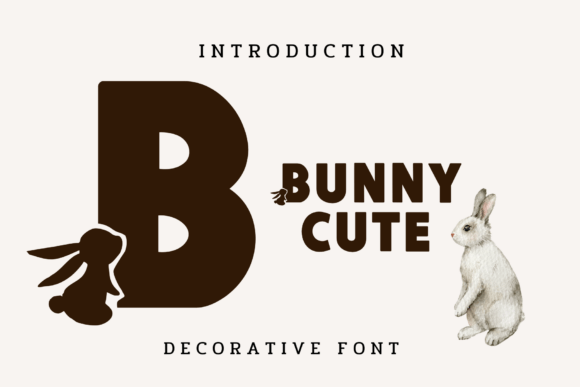
Bunny Cute Font: The Ultimate Guide to This Adorable Decorative Font
Are you looking for a font that can add a touch of cuteness to your designs? Look no further than the Bunny Cute font! This adorable decorative font is perfect for a variety of projects, from taking notes and writing diaries to creating greeting cards and social media posts. In this article, we’ll explore the world of Bunny Cute font and show you how to make the most of this versatile and charming font.
What is Bunny Cute Font?
Bunny Cute is a decorative font that is designed to add a touch of whimsy and playfulness to your designs. With its cute and bubbly letters, this font is perfect for projects that require a bit of personality and charm. Whether you’re creating a greeting card, a social media post, or a banner, Bunny Cute font is sure to make your design stand out.
Uses of Bunny Cute Font
One of the best things about Bunny Cute font is its versatility. This font can be used for a wide range of projects, including:
- Taking notes and writing diaries: Add a touch of cuteness to your notes and diary entries with Bunny Cute font.
- Creating greeting cards: Whether it’s a birthday, holiday, or just because, Bunny Cute font is perfect for creating adorable greeting cards.
- Designing banners: Add a playful touch to your banners with Bunny Cute font.
- Creating social media posts: Stand out on social media with Bunny Cute font.
- Designing mugs, cards, shirts, and stationery: Bunny Cute font is perfect for adding a personal touch to your designs.
Why Choose Bunny Cute Font?
So, why choose Bunny Cute font over other decorative fonts? Here are just a few reasons:
- Cute and playful: Bunny Cute font is designed to be cute and playful, making it perfect for projects that require a bit of personality.
- Versatile: This font can be used for a wide range of projects, from notes and diaries to social media posts and banners.
- Easy to read: Despite its decorative nature, Bunny Cute font is easy to read, making it perfect for projects that require a bit of flair.
Tips for Using Bunny Cute Font
Here are a few tips for using Bunny Cute font:
- Use it sparingly: While Bunny Cute font is adorable, it can be overwhelming if used too much. Use it sparingly to add a touch of cuteness to your designs.
- Pair it with other fonts: Bunny Cute font pairs well with other fonts, such as sans serif fonts. Experiment with different pairings to find the one that works best for your project.
- Experiment with colors: Bunny Cute font looks great in a variety of colors. Experiment with different colors to find the one that works best for your project.
Common Uses of Bunny Cute Font in Digital Design
Bunny Cute font is a popular choice for digital designers. Here are a few common uses:
- Social media graphics: Bunny Cute font is perfect for creating social media graphics, such as Facebook posts and Instagram stories.
- Blog posts: Add a touch of cuteness to your blog posts with Bunny Cute font.
- E-cards: Create adorable e-cards with Bunny Cute font.
Common Uses of Bunny Cute Font in Print Design
Bunny Cute font is also a popular choice for print designers. Here are a few common uses:
- Greeting cards: Bunny Cute font is perfect for creating adorable greeting cards.
- Stationery: Add a touch of cuteness to your stationery with Bunny Cute font.
- Posters: Create eye-catching posters with Bunny Cute font.
In conclusion, Bunny Cute font is a versatile and adorable decorative font that is perfect for a wide range of projects. Whether you’re creating a greeting card, social media post, or banner, Bunny Cute font is sure to add a touch of cuteness and personality to your design. With its ease of use and versatility, Bunny Cute font is a great addition to any designer’s toolkit.